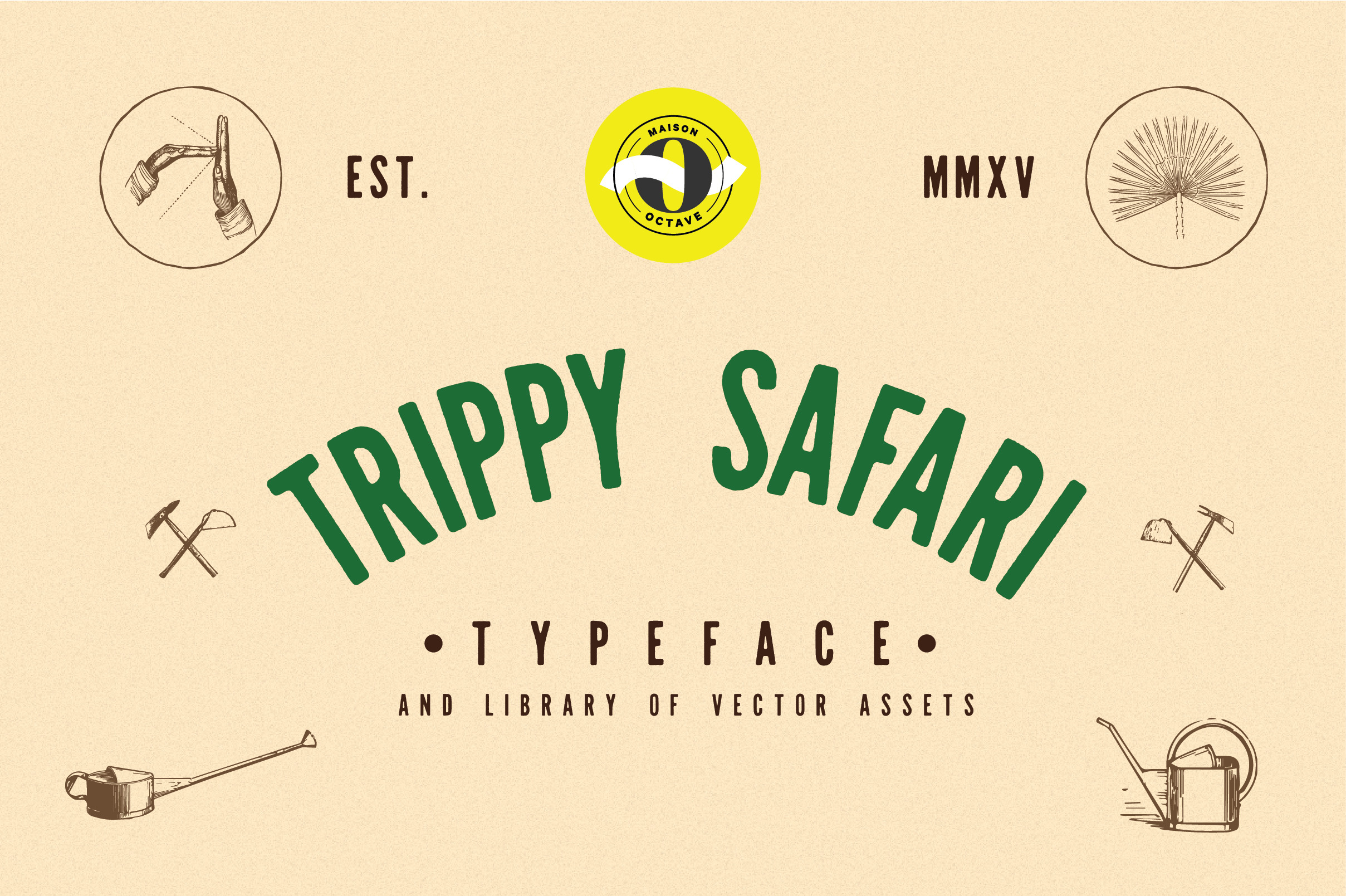
Trippy Safari Font & Illustrations
Buckle up and be ready for some serious exotic jungle exploration!
This cool vintage font perfectly represents the vintage & retro attitude from the 40's. This font set also includes vector illustrations.
Super easy to use and scalable, those illustrations will add some serious punch to your designs! It includes uppercase letters, numbers & special characters.